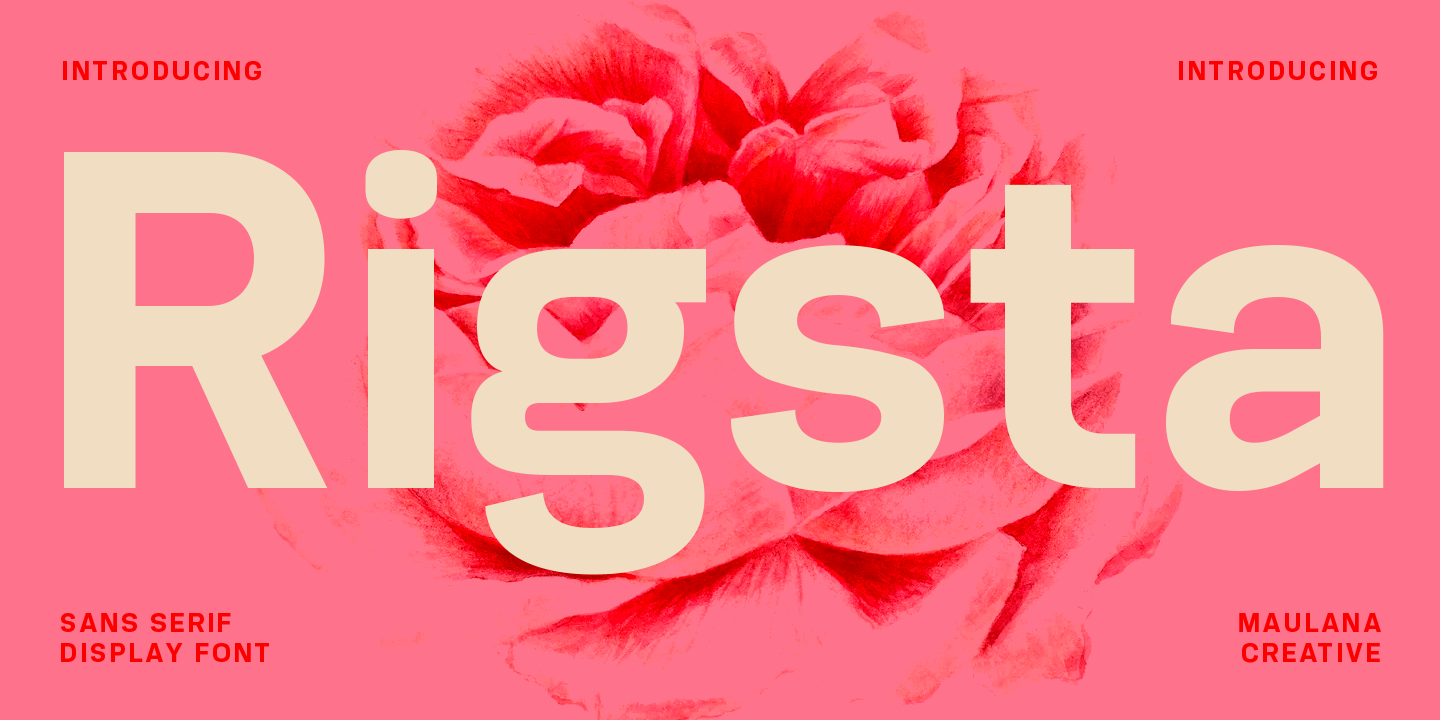
MC Rigsta Font is ideal for hip-hop album artwork, urban music promotions, street culture branding, rap artist logos, underground music venues, youth lifestyle marketing, urban fashion labels, graffiti-inspired designs, breakdancing event posters, and authentic projects that celebrate the raw energy and creative expression of hip-hop culture with street credibility and musical authenticity.
What makes MC Rigsta Font so exciting is its powerful capture of hip-hop culture's dynamic rhythm through bold, street-smart letterforms that pulse with musical energy and urban authenticity. This typeface embodies the spirit of rap and street culture, featuring strong geometric construction with subtle angular details that suggest microphone grips and turntable precision while maintaining excellent readability for contemporary music industry applications and urban branding.
MC Rigsta Font family encompasses multiple urban variations: Regular, Bold, Light, Heavy, Beat, Flow, Rhythm, and Street versions. Each style maintains the font's inherent hip-hop character while offering different levels of musical intensity and street appeal, providing designers with comprehensive tools for creating authentic urban culture aesthetics that resonate with hip-hop communities and music enthusiasts seeking genuine artistic expression.
The authentic street appeal of MC Rigsta Font Free Download makes it exceptionally valuable for music industry and urban lifestyle brands targeting hip-hop culture. This font successfully communicates musical authenticity and street credibility, making it perfect for artists and brands that want to connect with hip-hop audiences and urban communities. Its rhythmic character works effectively across both digital music platforms and printed promotional materials, while its distinctive hip-hop aesthetic creates immediate recognition among audiences who appreciate authentic urban culture and musical innovation.